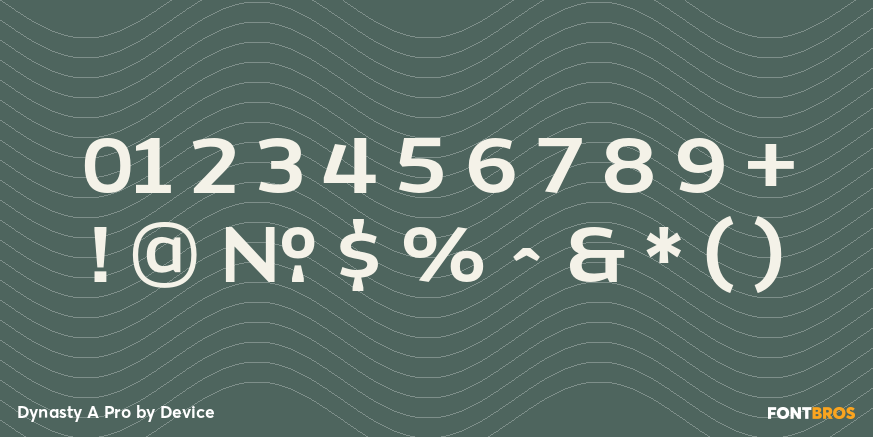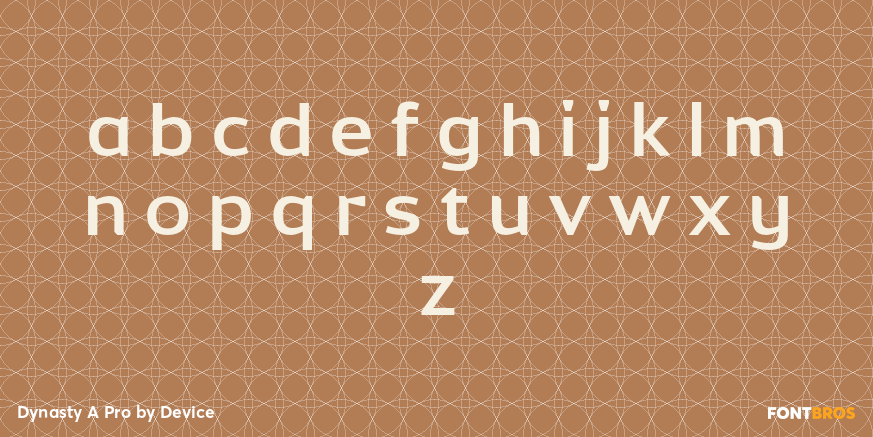
Dynasty A Pro
Font Family by Device
Dynasty is an extensive and versatile family that exploration and modernisation of the typographic quirks associated with the ?American Gothic? type school (in much the same way as English Grotesque was an exploration of Gill/Johnston idea-space) and adds chamfered elements to dots and tails to emphasise and extend the early machine-made aesthetic.
Elegantly clean and readable at headline and small text settings, where (as with all fonts in small sizes) the introduction of tracking will improve legibility.